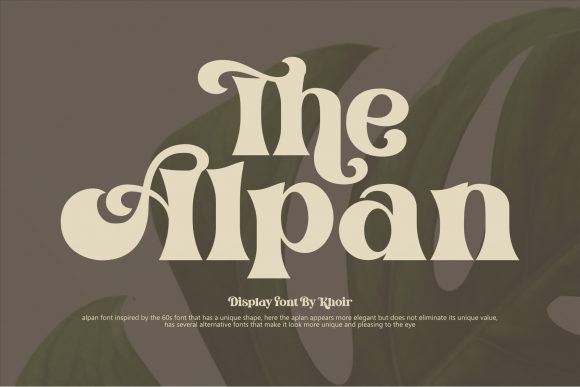
Prepare to be mesmerized by The Alpan Font, a display font that dances across your screens with unrivaled boldness and individuality. Expertly crafted by the talented mrkhoir012, this typographic masterpiece is destined to become your go-to font for captivating music posters that ignite the senses.
The Alpan Font's striking presence commands attention, radiating an aura of power and confidence. Its sharp edges and dynamic curves exude a sense of urgency, perfectly capturing the captivating energy of live music. Let your posters leap off the page with this font's vibrant personality, enticing music lovers to immerse themselves in the rhythm and soul of your performances.
Unleash your creativity and let The Alpan Font transport you to a world of musical enchantment. Its versatility knows no bounds, allowing you to effortlessly craft posters that resonate with your unique style. Whether your music is a symphony of classical melodies, a rock anthem that sets hearts racing, or a soulful ballad that stirs emotions, this font will amplify the essence of your music, captivating audiences with its undeniable allure.
With The Alpan Font as your artistic ally, your music posters will transcend mere advertisements, evolving into captivating works of art that inspire, provoke, and leave an indelible mark on the hearts and minds of your audience. Allow this extraordinary font to become the conductor of your creative orchestra, orchestrating a visual symphony that harmonizes perfectly with the rhythm of your music.
Step into the spotlight with The Alpan Font and watch as your music posters transform into extraordinary masterpieces. Its bold strokes and captivating curves will ignite a passion for your music, attracting a loyal following of fans who eagerly anticipate your next performance. Experience the transformative power of this exceptional font and let your music soar to new heights!